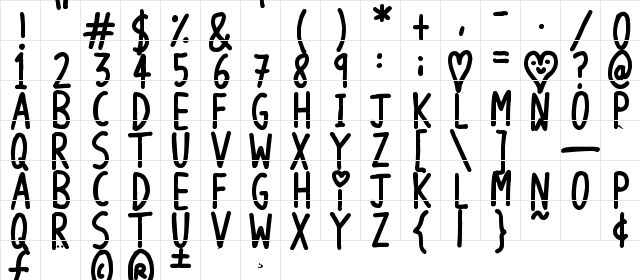
Long Loving Letters Regular
Design Context for Long Loving Letters Typeface
Long Loving Letters is a composed and adaptable typeface that performs quietly and consistently across a wide range of design contexts.